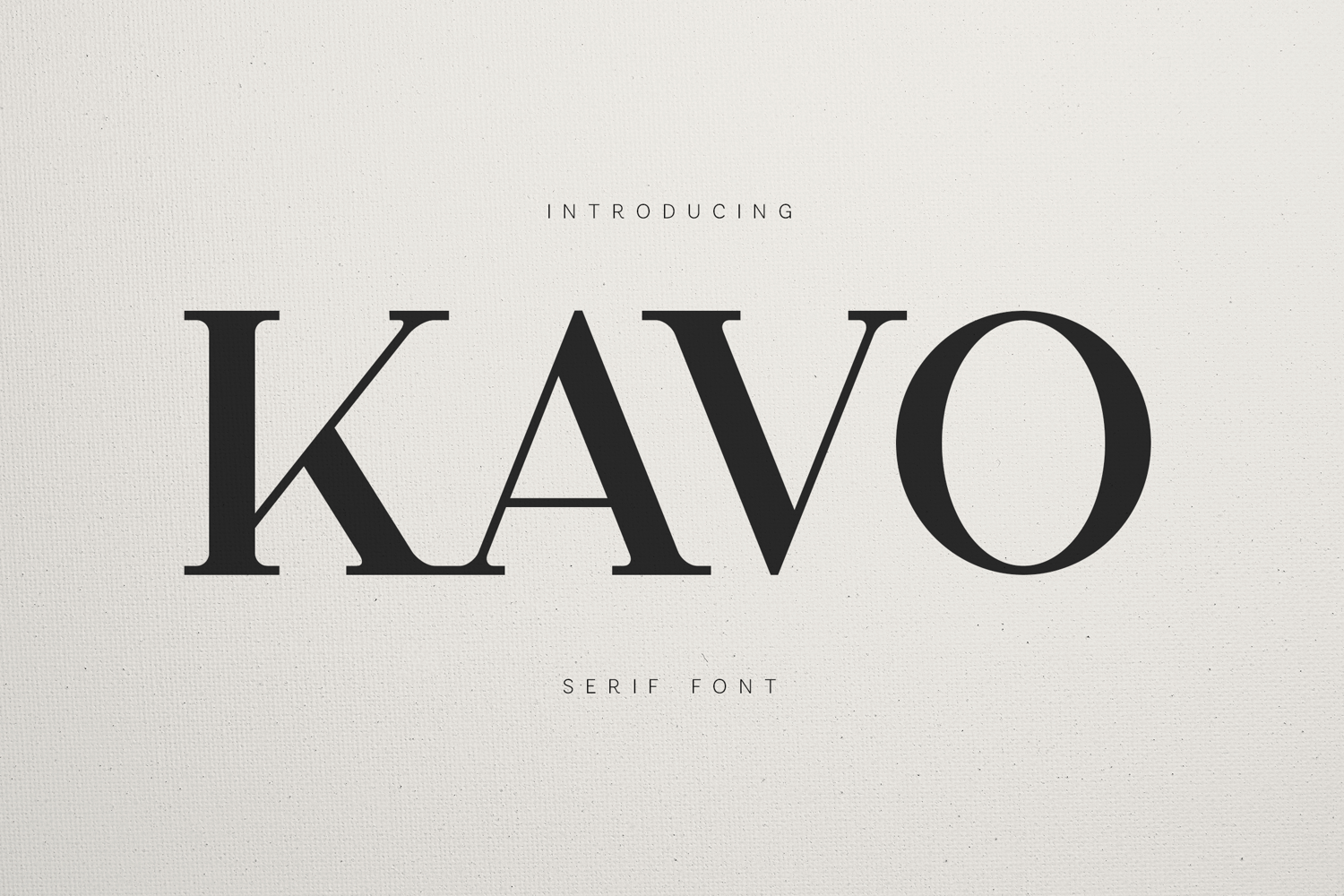
Kavo Elegant Classic Serif Font
Kavo is an elegant classic serif font inspired by timeless editorial typography and refined print design. With balanced proportions, sharp serifs, and a clean, confident structure, Kavo delivers a sophisticated look that feels both traditional and modern.
Designed for clarity and elegance, Kavo is ideal for editorial layouts, magazines, book covers, branding, logos, luxury projects, and professional typography systems. Its strong presence makes it perfect for headlines and statements, while its refined details keep it readable and versatile across print and digital use.
Editorial design, magazines, book covers, branding, logos, luxury identities, fashion projects, packaging, classic layouts, and professional typography.